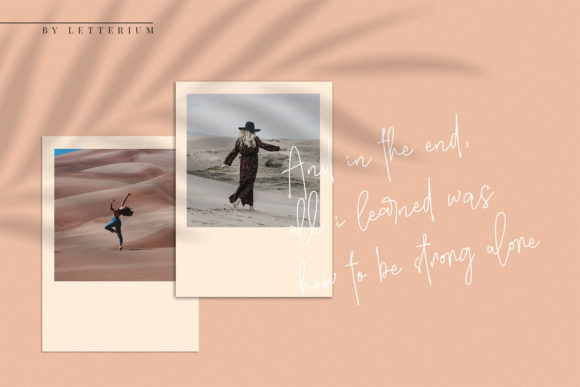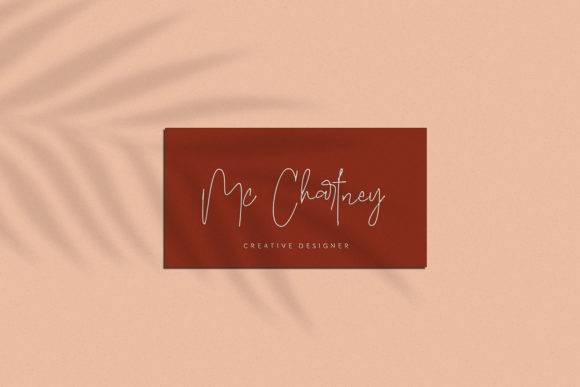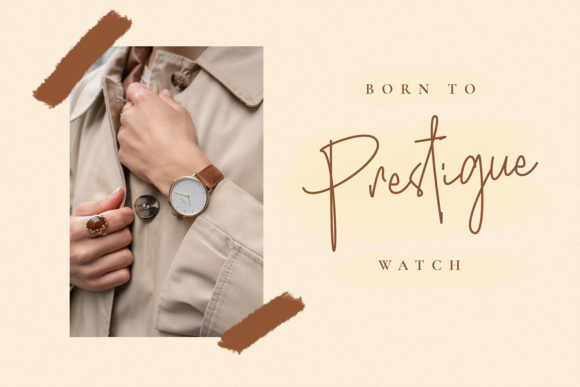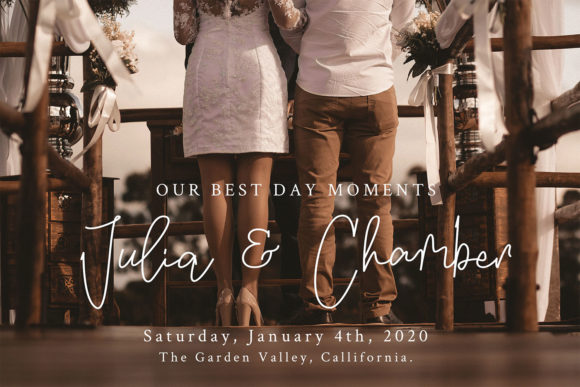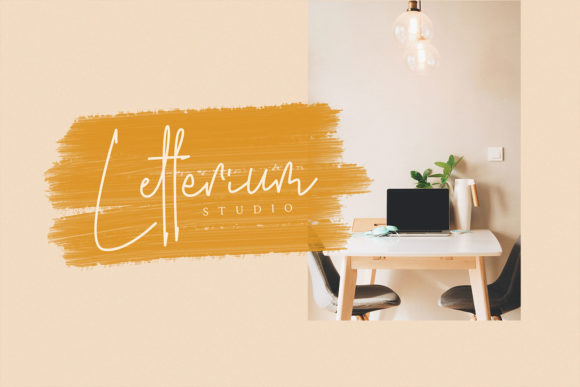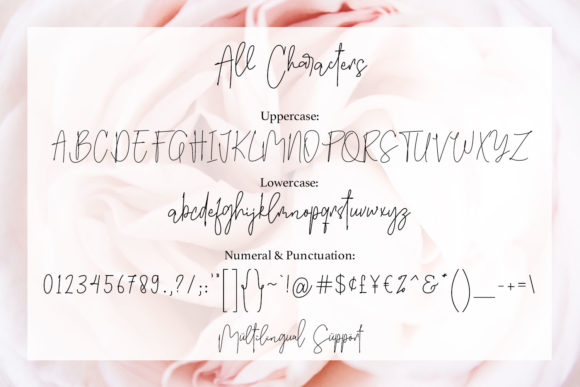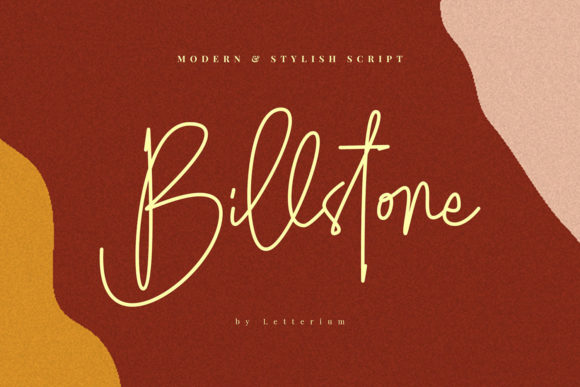
Introducing Billstone Font: The Ultimate Choice for Elegant Designs
Are you a designer or crafter looking for a font that exudes class and sophistication? Look no further than Billstone Font, a stunning handwritten font that is sure to capture your heart. With its authentic feel and versatility, Billstone Font is the perfect choice for creating a wide range of designs, from gorgeous wedding invitations to beautiful stationery art, eye-catching social media posts, and cute greeting cards.
The Charm of Billstone Font
Billstone Font is a classy handwritten font that boasts a unique and elegant style. Its authentic feel is reminiscent of traditional calligraphy, making it perfect for designs that require a touch of sophistication. The font’s flowing lines and delicate curves give it a romantic and whimsical feel, making it ideal for wedding-related designs, such as invitations, save-the-date cards, and wedding stationery.
Uses for Billstone Font
Billstone Font is an incredibly versatile font that can be used for a wide range of design projects. Here are just a few ideas to get you started:
- Wedding Invitations: Create stunning wedding invitations that set the tone for a beautiful and elegant wedding. Use Billstone Font to add a personal touch to your invitations and make them truly special.
- Stationery Art: Add a touch of elegance to your stationery art with Billstone Font. Use it to create beautiful notecards, journals, and planners that are perfect for everyday use.
- Social Media Posts: Make your social media posts stand out with Billstone Font. Use it to create eye-catching graphics, quotes, and announcements that are sure to grab attention.
- Greeting Cards: Create cute and personalized greeting cards for special occasions, such as birthdays, anniversaries, and holidays. Billstone Font is perfect for adding a touch of warmth and personality to your cards.
Why Choose Billstone Font?
So why choose Billstone Font over other fonts? Here are just a few reasons:
- Unique and Elegant: Billstone Font has a unique and elegant style that sets it apart from other fonts. Its authentic feel and classic look make it perfect for designs that require a touch of sophistication.
- Versatile: Billstone Font is incredibly versatile and can be used for a wide range of design projects. Whether you’re creating wedding invitations or social media posts, Billstone Font is the perfect choice.
- Easy to Read: Despite its elegant style, Billstone Font is easy to read and understand. This makes it perfect for designs that require a clear and concise message.
Tips for Using Billstone Font
Here are a few tips for using Billstone Font in your designs:
- Pair it with Other Fonts: Billstone Font pairs well with other fonts, such as sans-serif fonts and script fonts. Experiment with different font combinations to find the perfect look for your design.
- Use it for Headings: Billstone Font is perfect for headings and titles. Use it to add a touch of elegance to your designs and make your headings stand out.
- Experiment with Colors: Billstone Font looks great in a variety of colors. Experiment with different colors and shades to find the perfect look for your design.
In conclusion, Billstone Font is a stunning handwritten font that is perfect for designers and crafters looking for a classy and elegant font. With its authentic feel and versatility, Billstone Font is the perfect choice for creating a wide range of designs, from gorgeous wedding invitations to beautiful stationery art, eye-catching social media posts, and cute greeting cards. So why wait? Fall in love with Billstone Font and start creating stunning designs today!